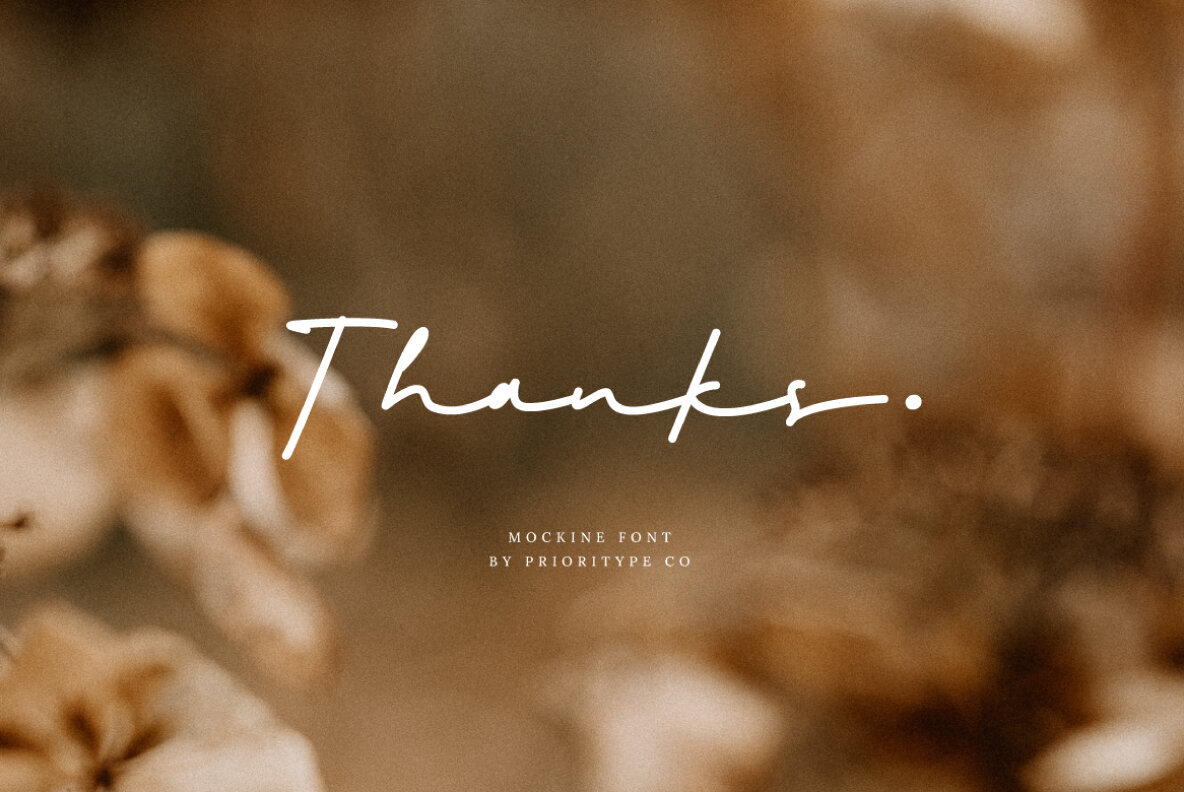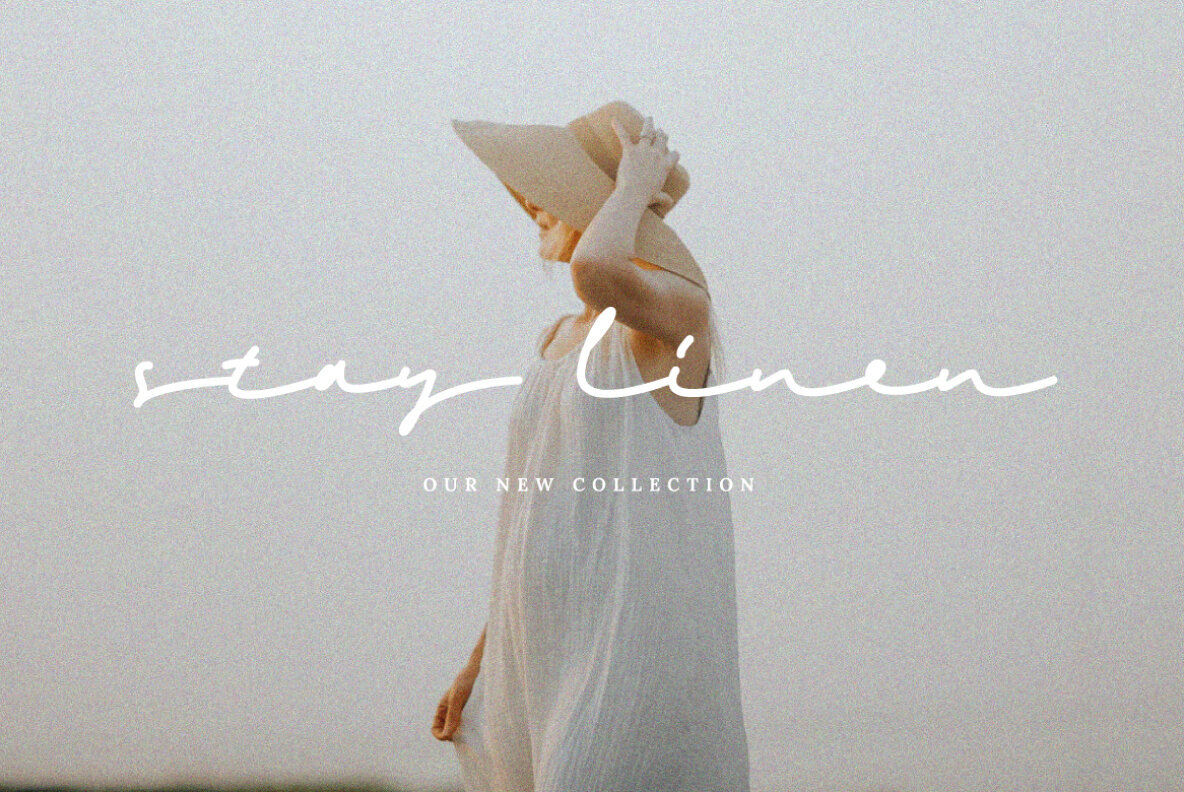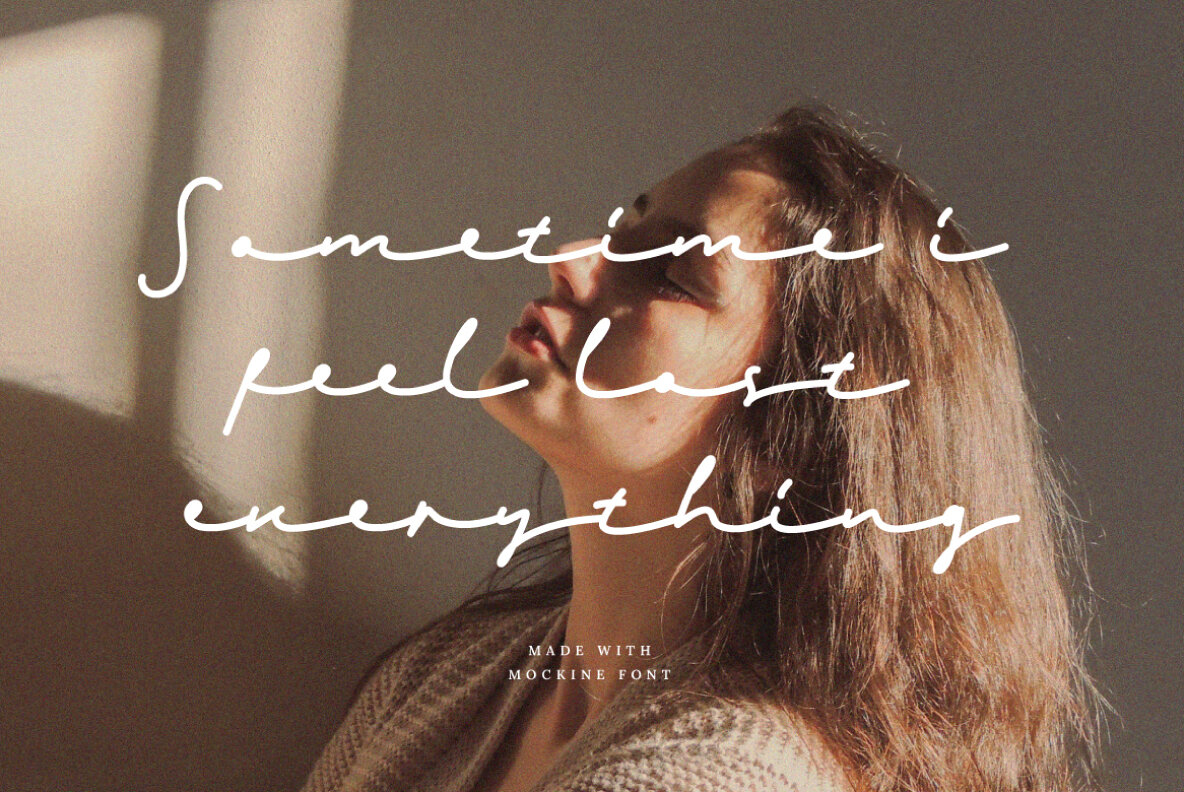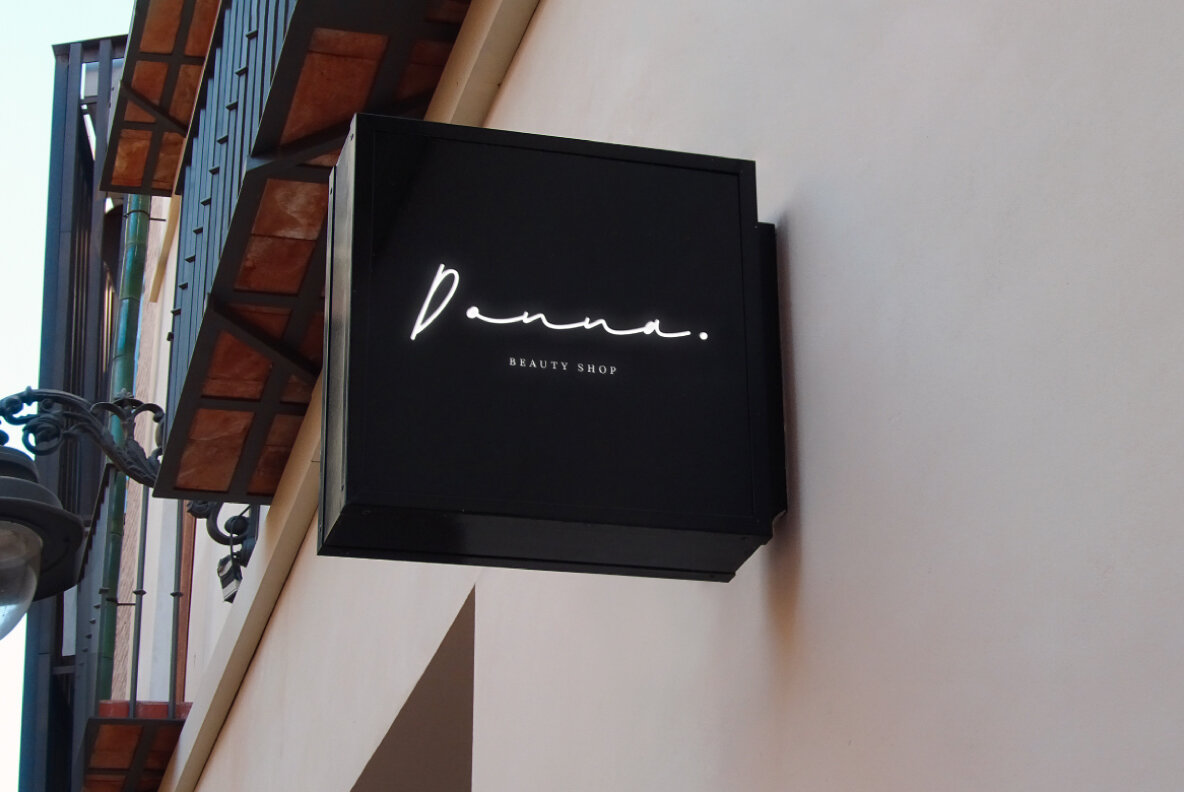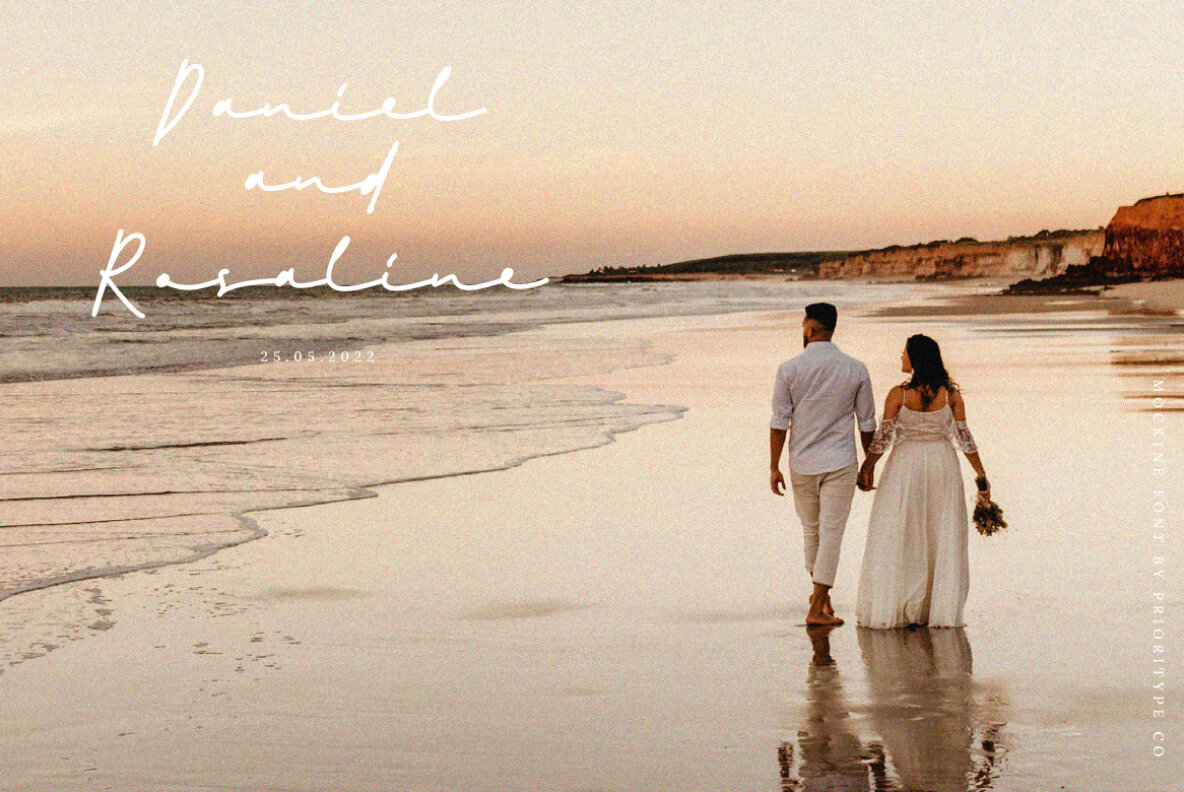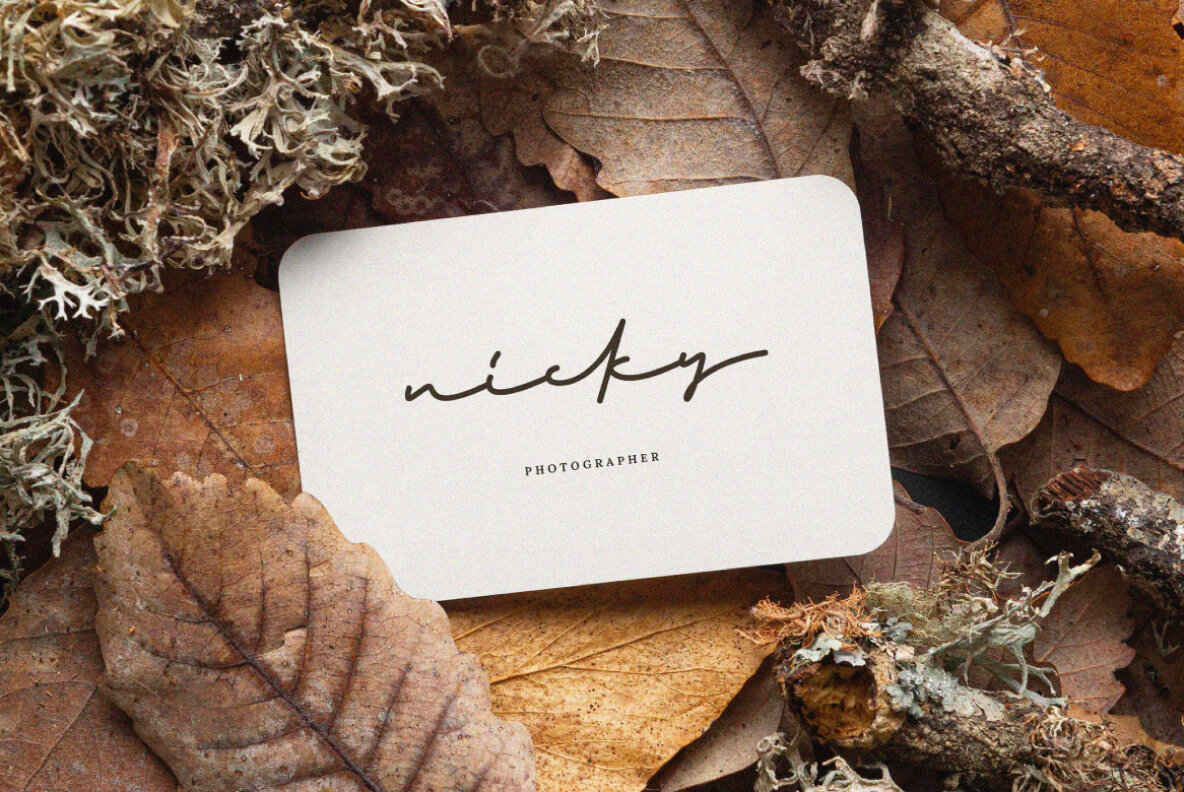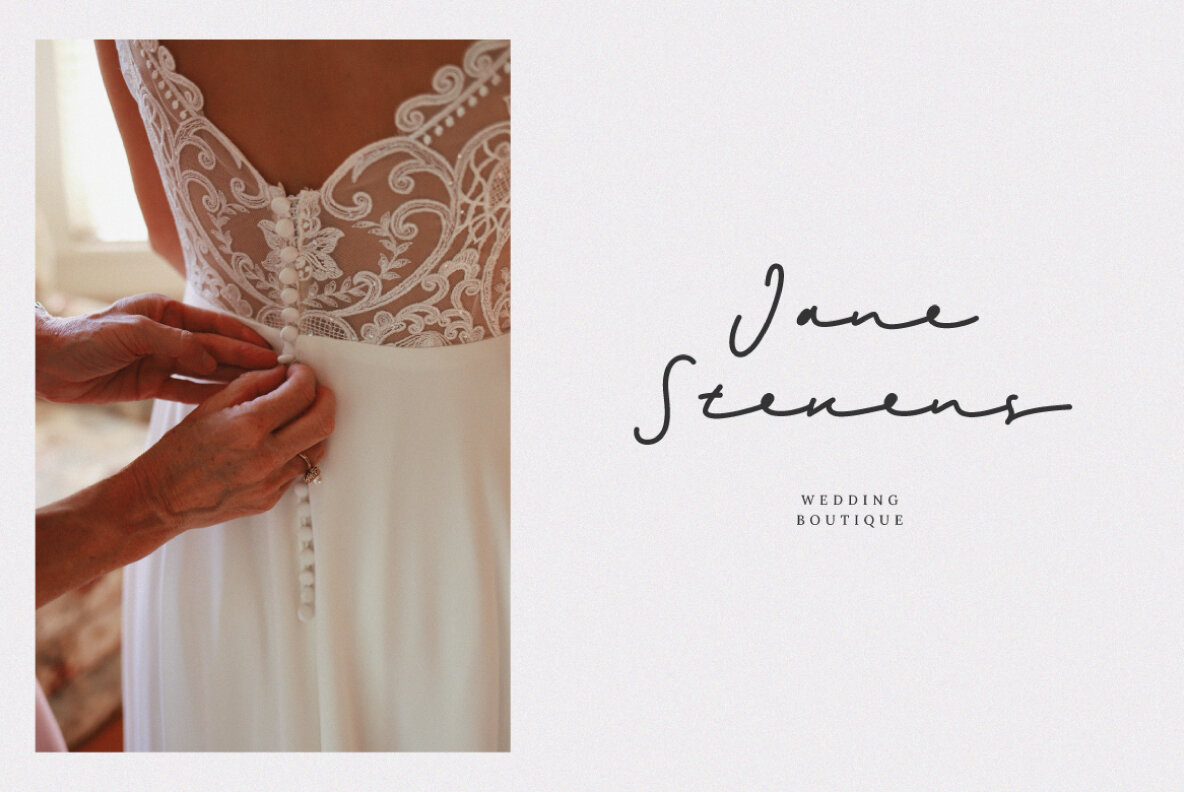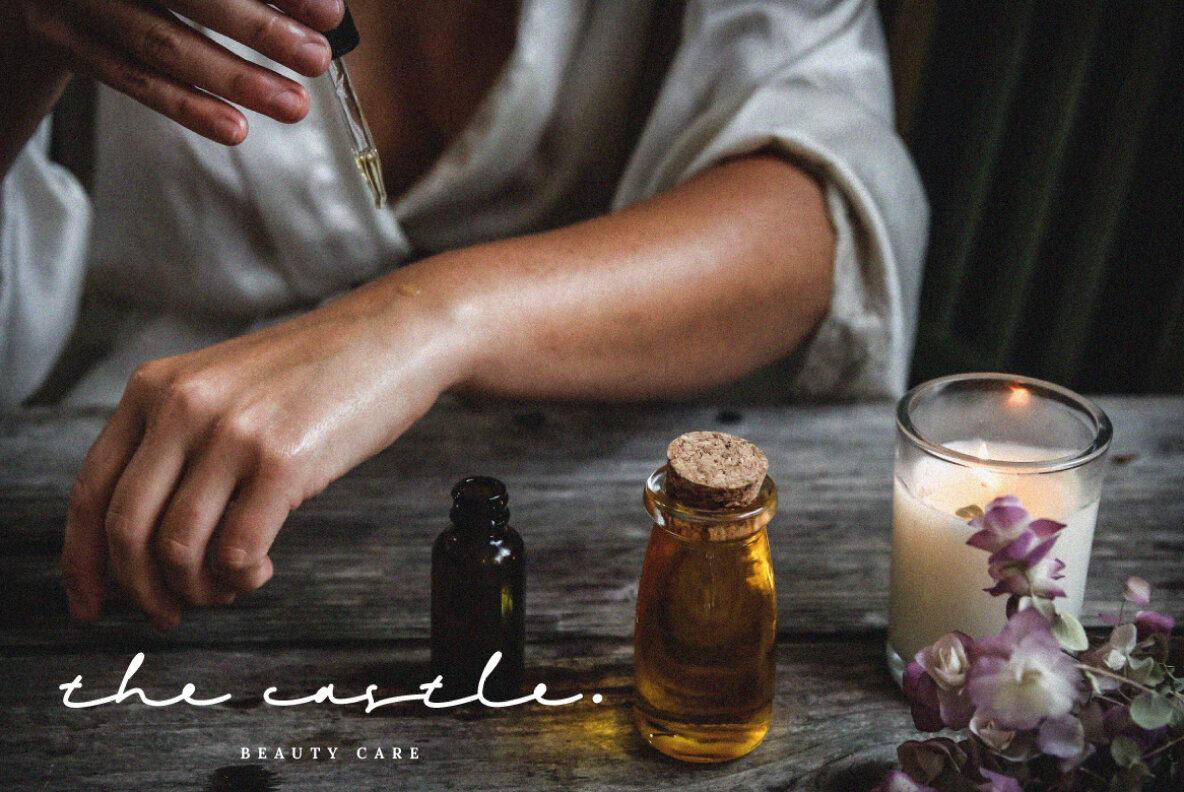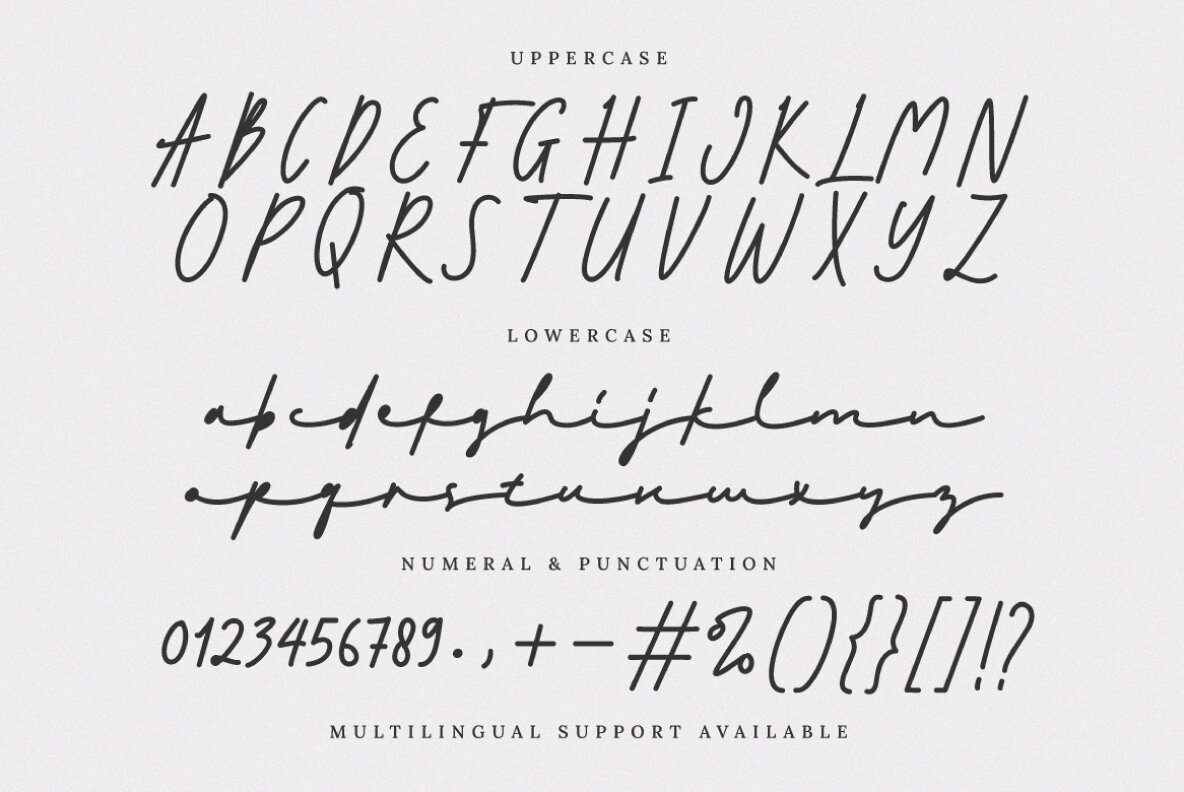
Mockine Font
Mockine
Mockine is a script typeface featuring natural hand strokes, designed to bring a unique touch to your design projects. Its monoline style makes it suitable for logos, branding, and social media posts, providing a modern aesthetic. Mockine covers a wide range of languages, making it a versatile choice for global projects. Some of the supported languages include English, French, Spanish, German, Norwegian, Swedish, and many more. With its elegant hand-stroke style, Mockine enhances your design elements effortlessly.Mockine: A Versatile Monoline Script Font
Multilingual Contained